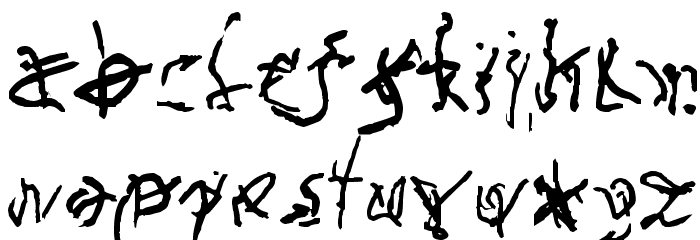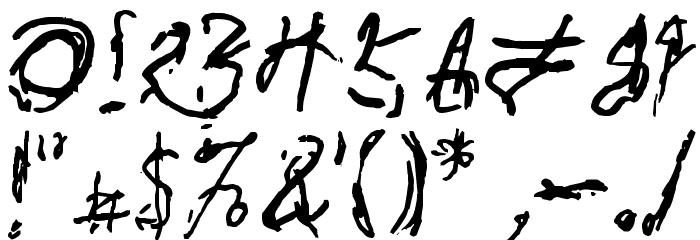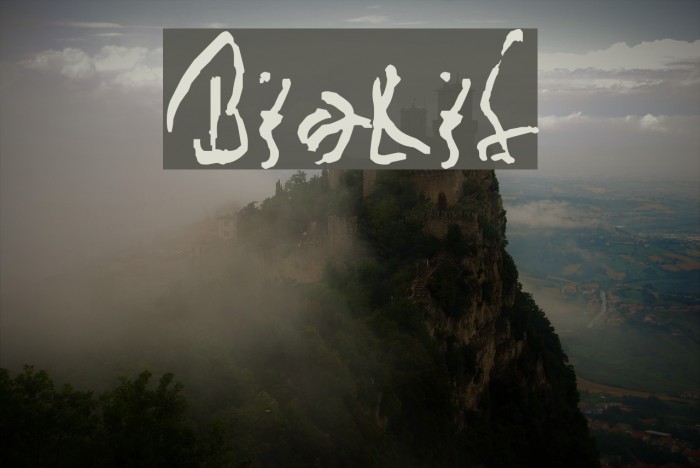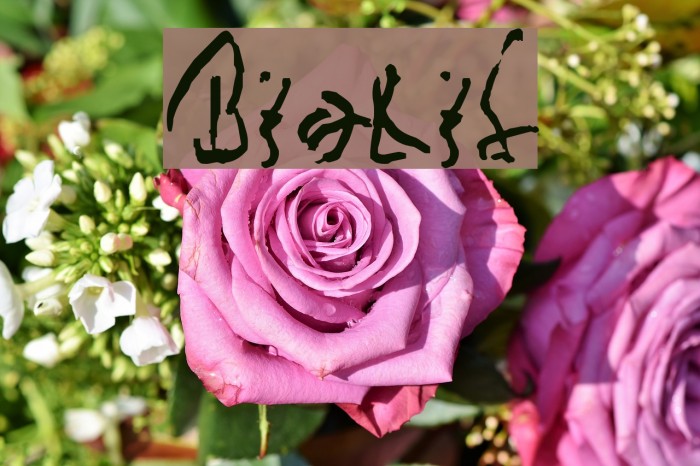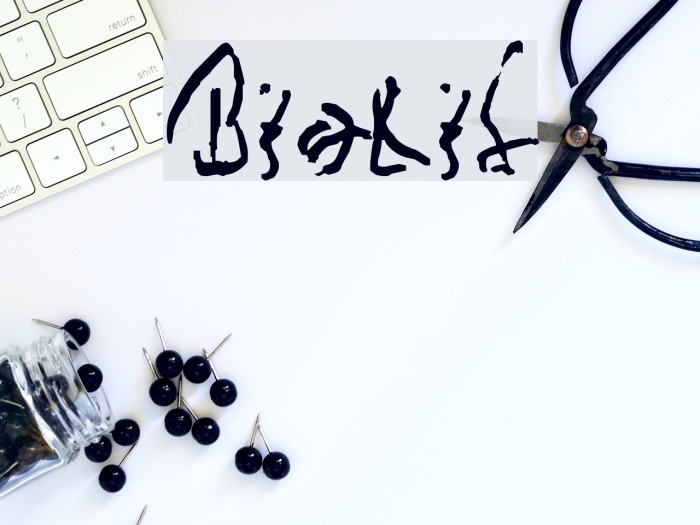
Biolid Font
This font exhibits a highly expressive and artistic style, characterized by its erratic and dynamic strokes that mimic a hand-drawn appearance. The letters are irregular and vary significantly in shape and size, giving the font a chaotic yet intriguing aesthetic. The strokes are bold and uneven, with a rough texture that adds to its raw, organic feel. This font captures a sense of movement and spontaneity, making it stand out with its unique, almost abstract forms. The overall design is unconventional, with a strong emphasis on individuality and creativity, making it suitable for projects that require a distinctive and artistic touch.
An expressive, hand-drawn font with dynamic, irregular strokes and a chaotic aesthetic.
- Proposed Projects: Ideal for artistic projects, album covers, posters, and any design that seeks to convey creativity and individuality.
- Character Spacing: Tight
- Overall Style: Artistic, Chaotic
- Use Case: Logos, Posters, Artistic Projects